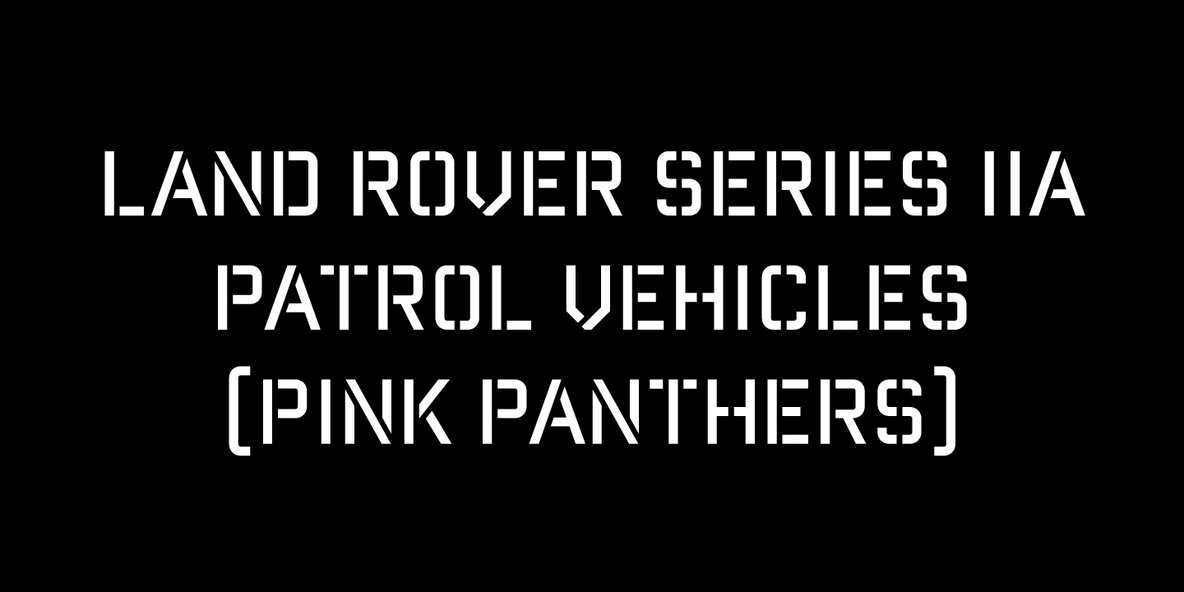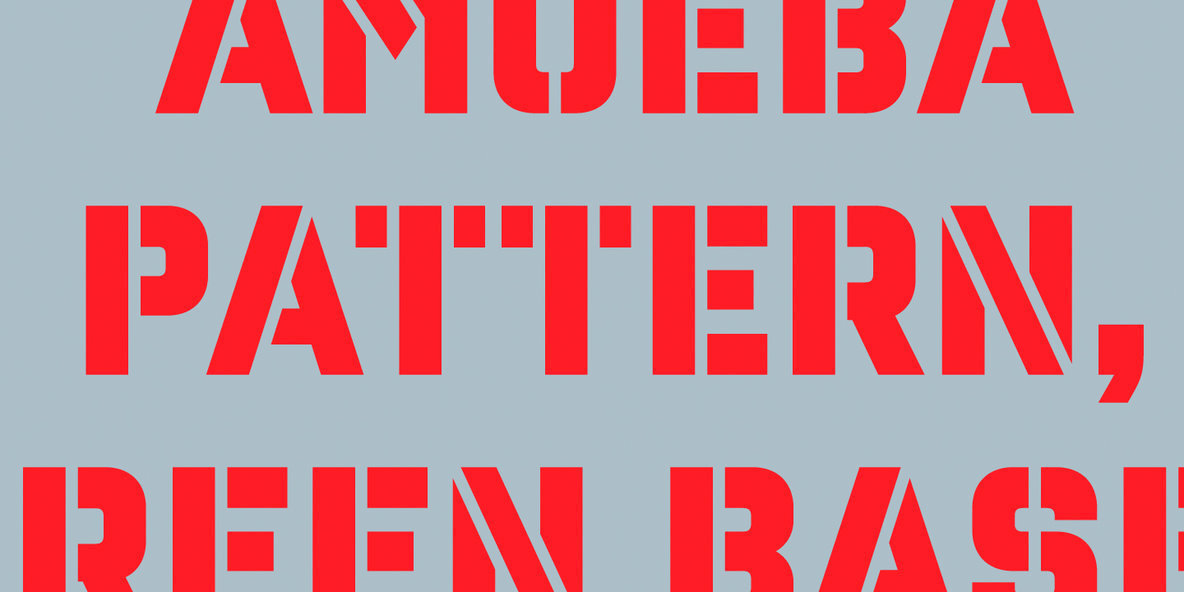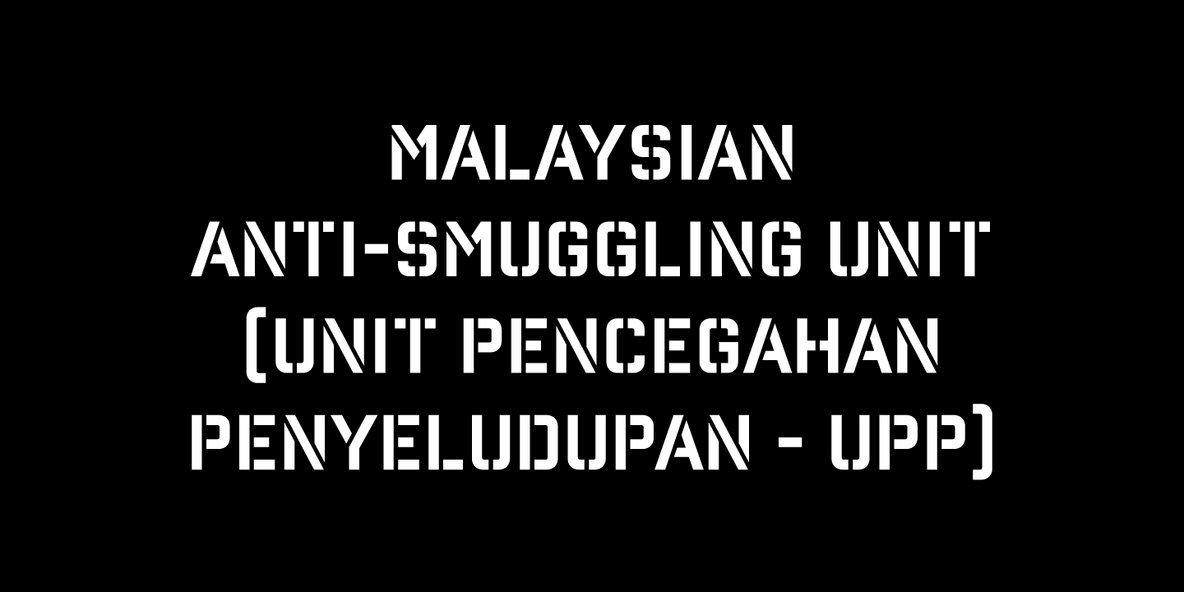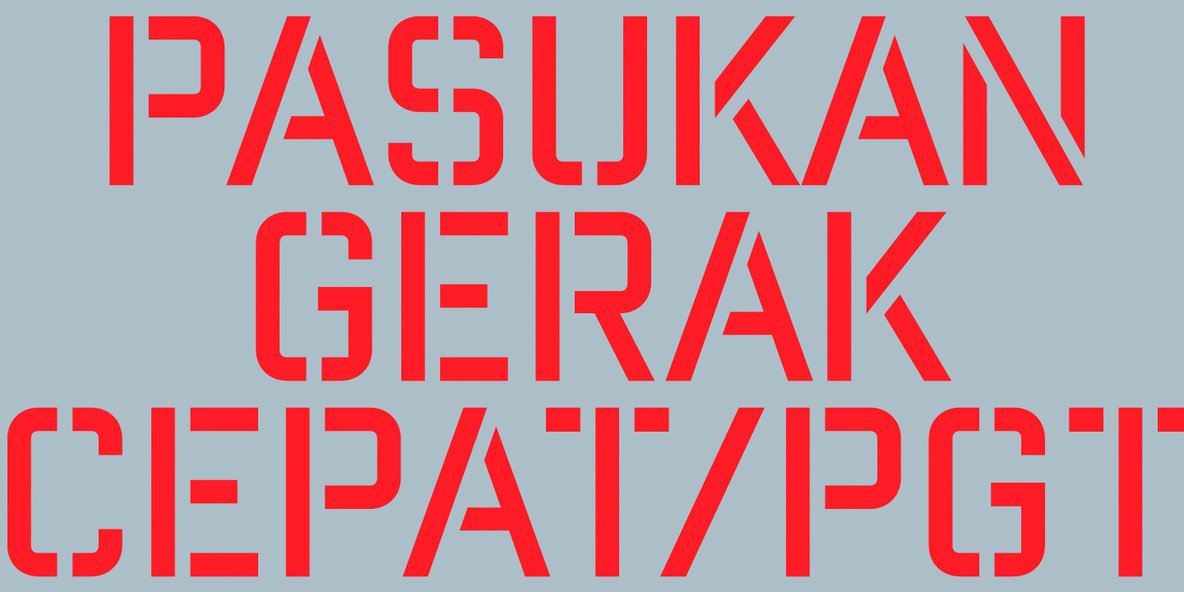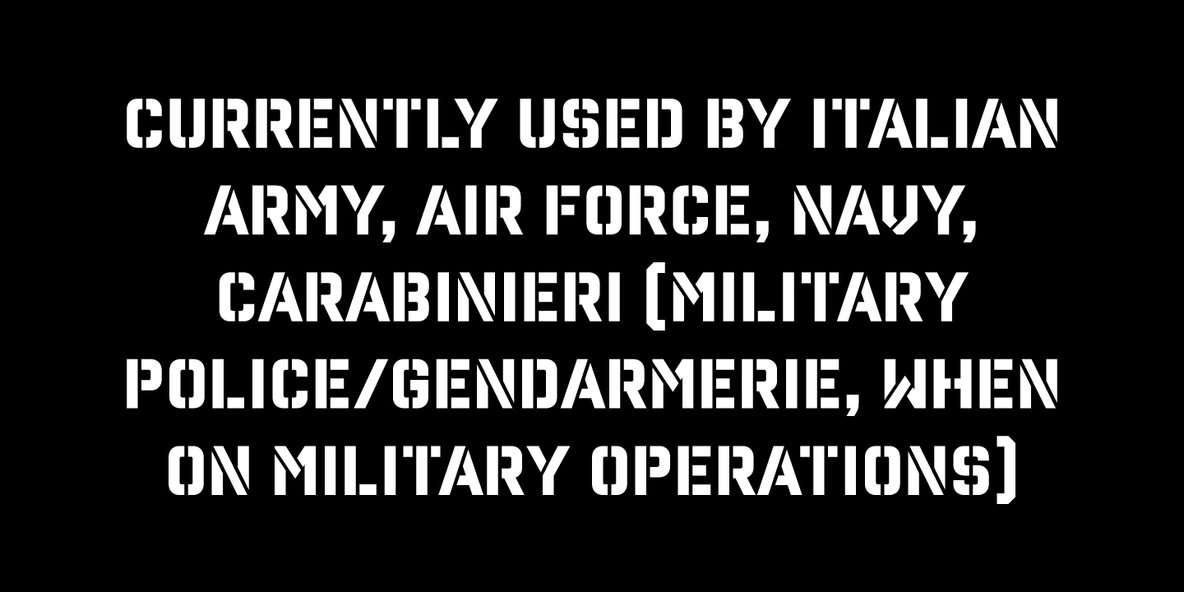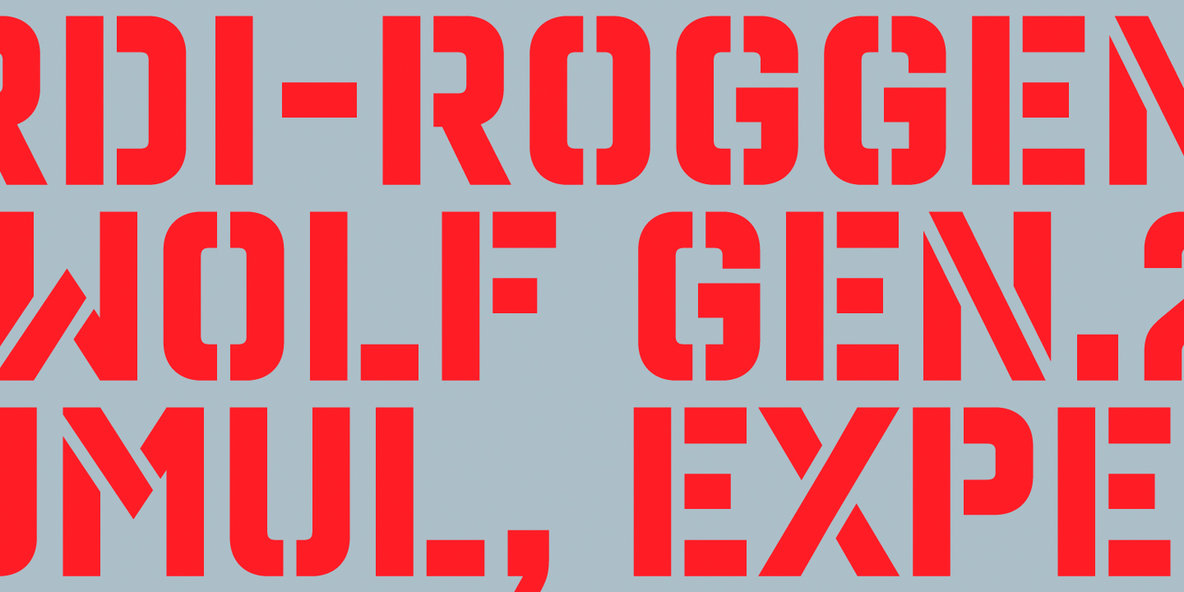
Reload Alt Stencil Font
Reload Alt Stencil is a rounded industrial geometric stencil typeface available in four flexible and distinct weights.
Features include:
Slashed zero
Romanian s accent language feature
Extended language support